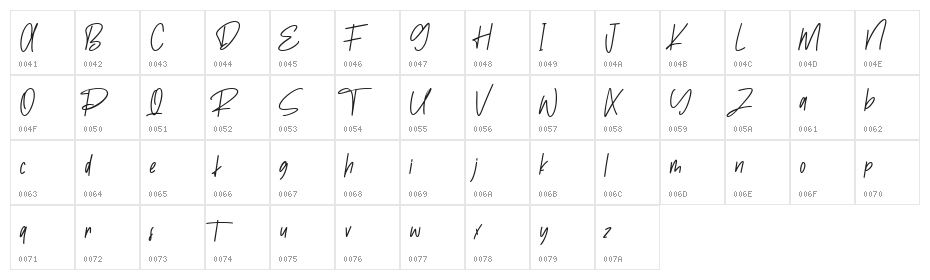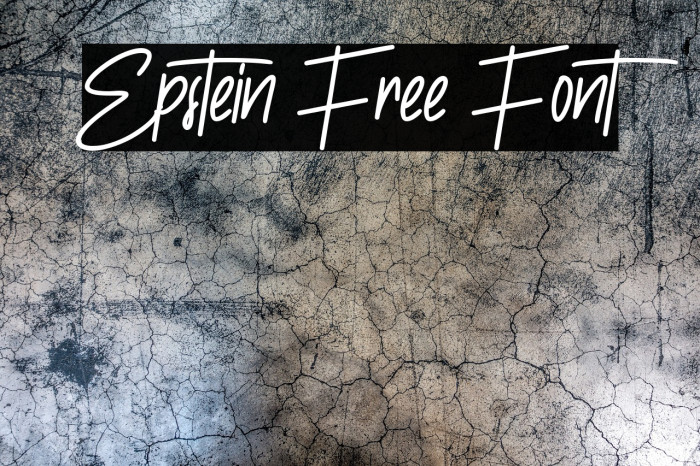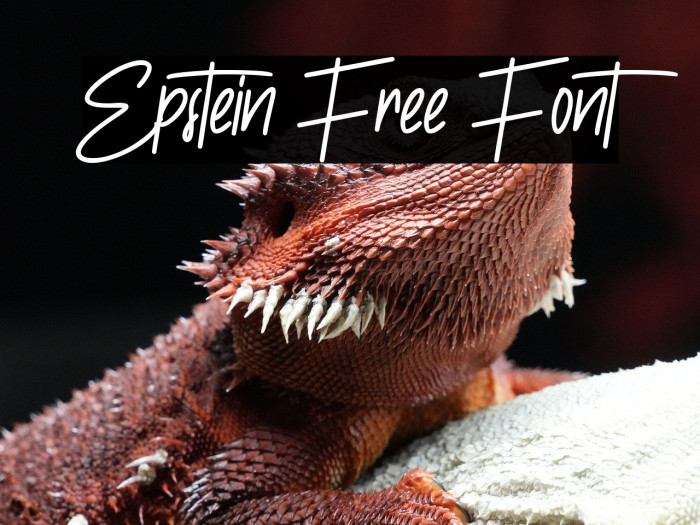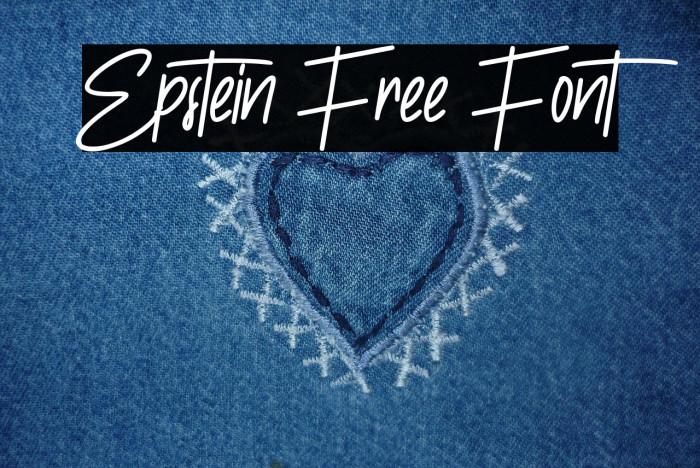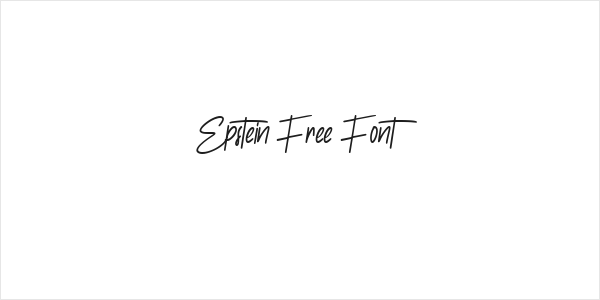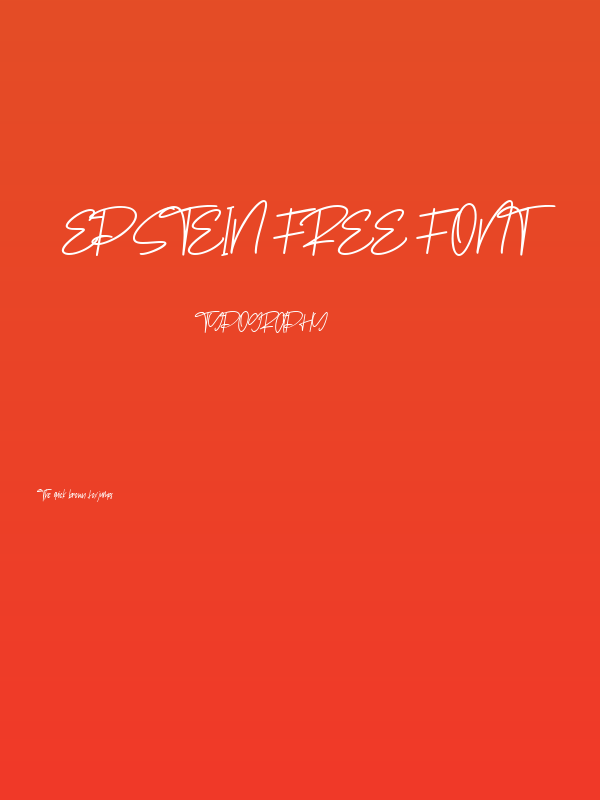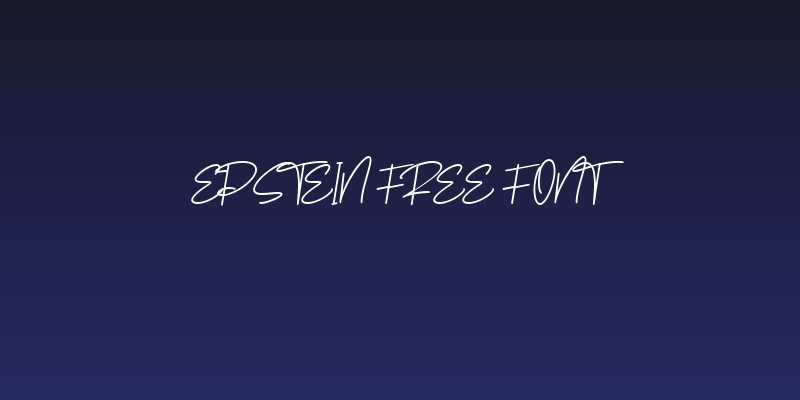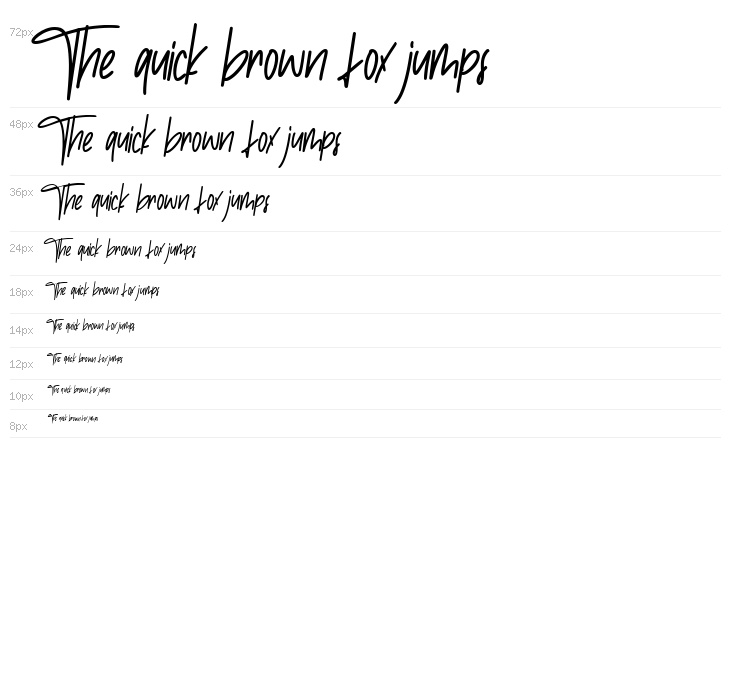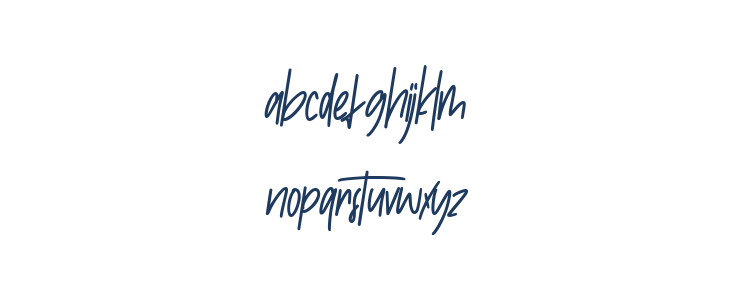
Epstein Free Font Font
Epstein Free Font Description
This font features a dynamic and energetic handwritten style, characterized by its fluid and continuous strokes. The letters are slightly slanted, giving a sense of motion and spontaneity. The uppercase and lowercase characters maintain a consistent style, with elongated ascenders and descenders that add to its expressive nature. The font's casual yet sophisticated appearance makes it suitable for projects that require a personal touch. Its legibility is maintained despite the playful and artistic design, making it versatile for various creative applications.